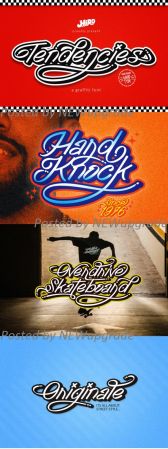
Tendencies is an incredibly beautiful and flowing handwritten font. This font is PUA encoded which means you can access all of the glyphs and swashes with ease! It features a varying baseline, smooth lines, gorgeous glyphs and stunning alternates. Fall in love with its versatile style and use it to create spectacular designs!